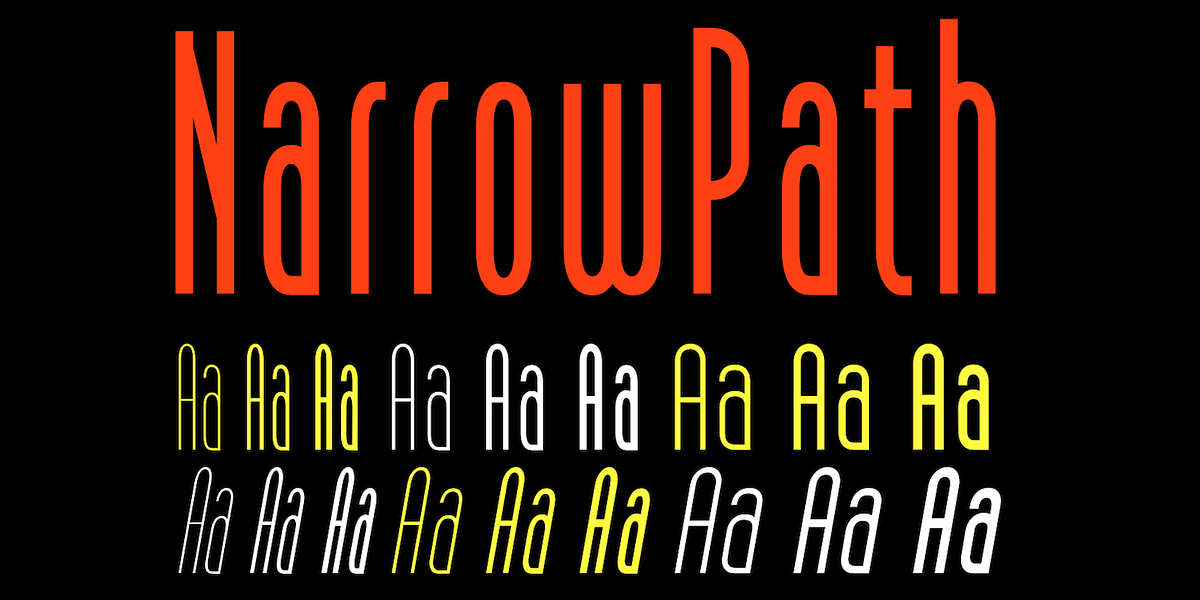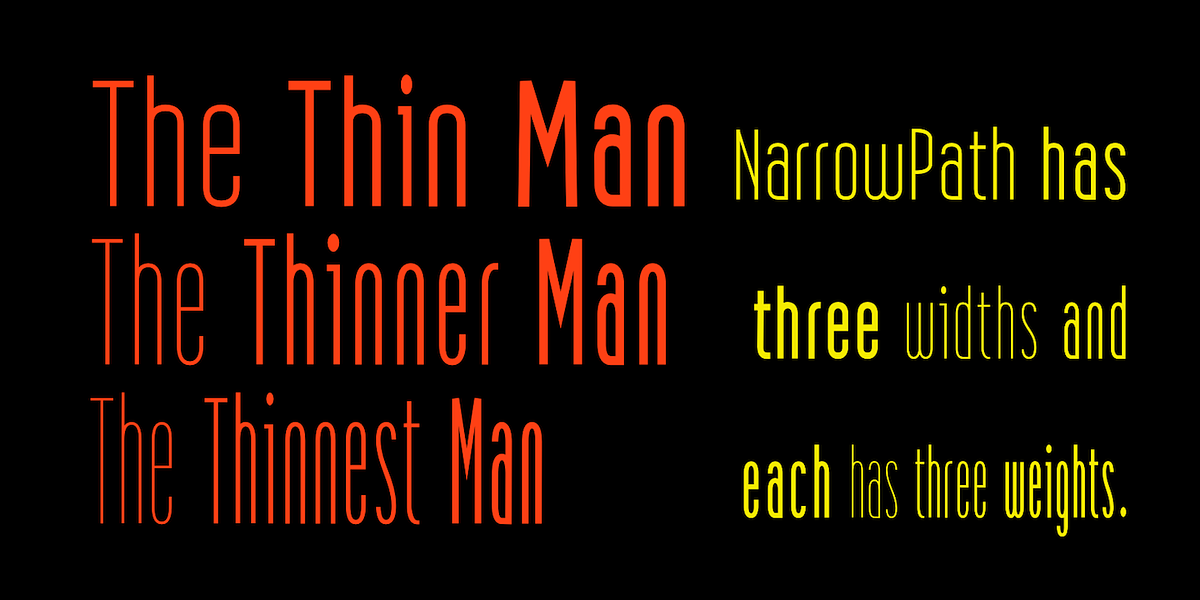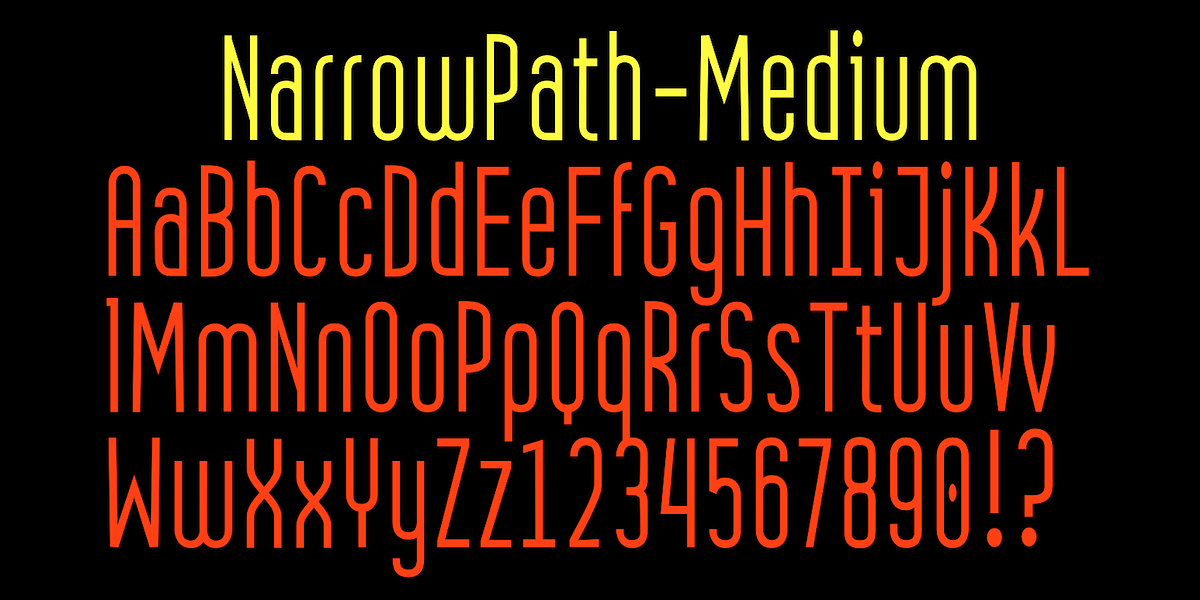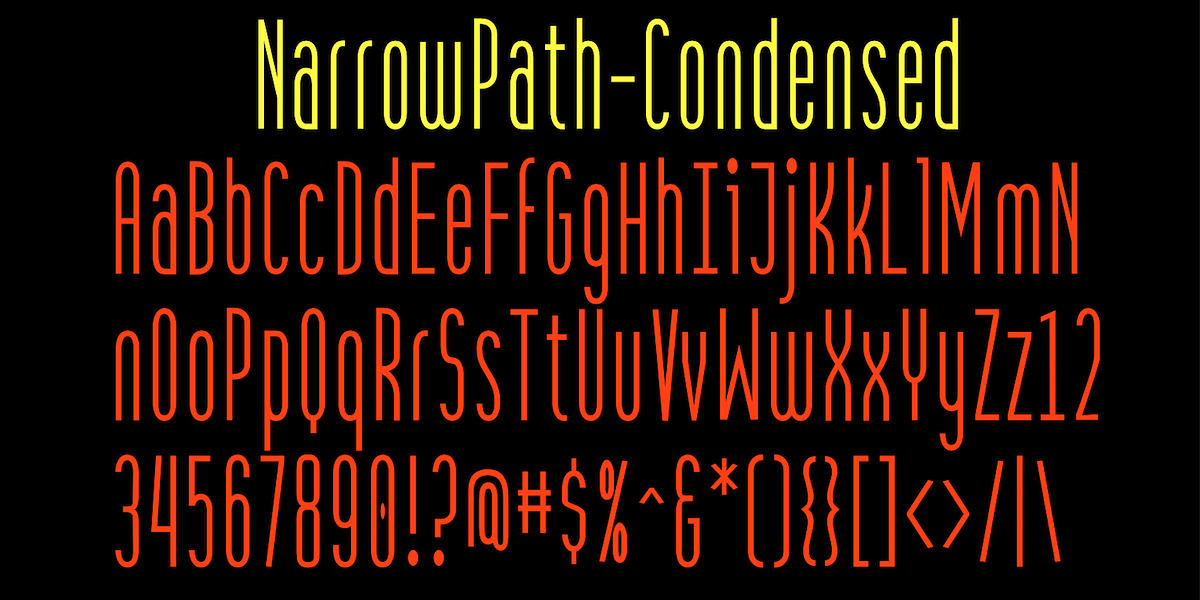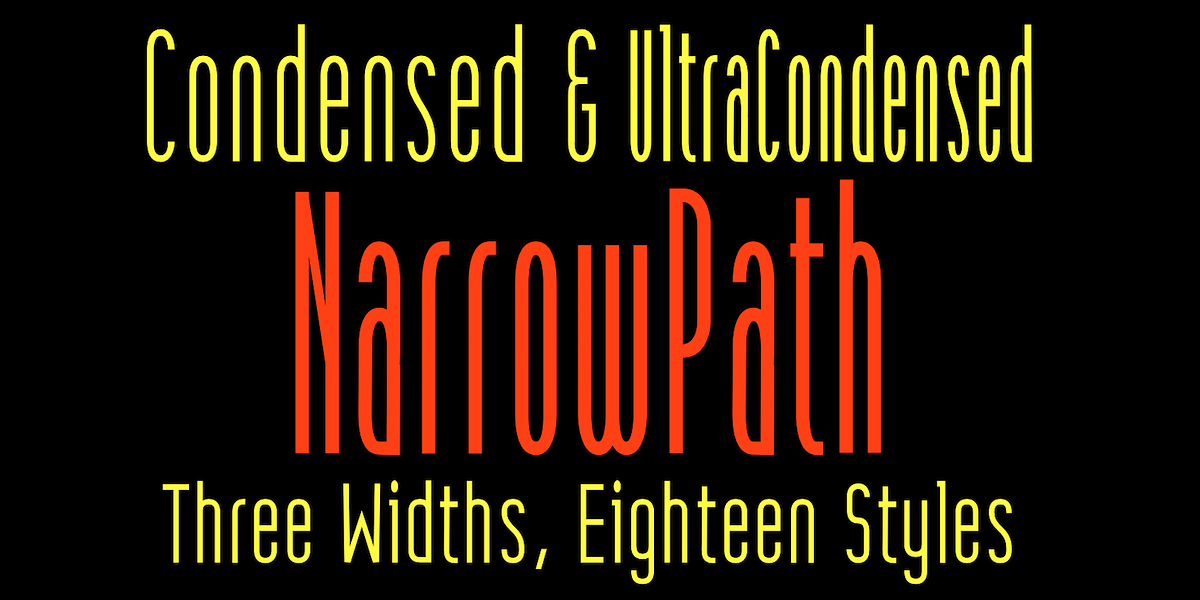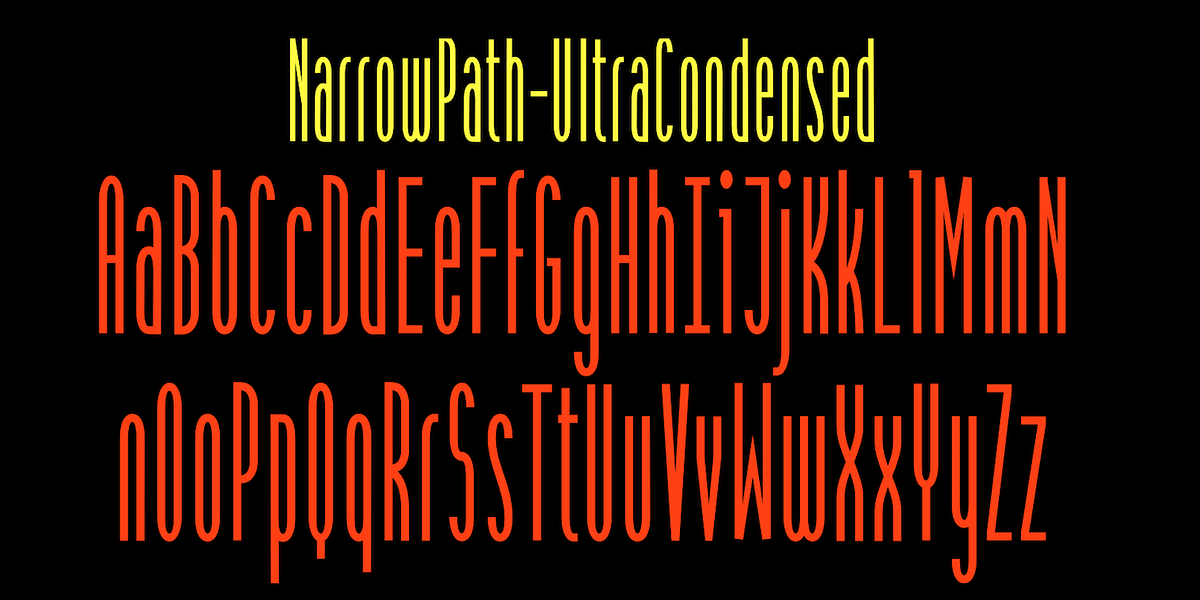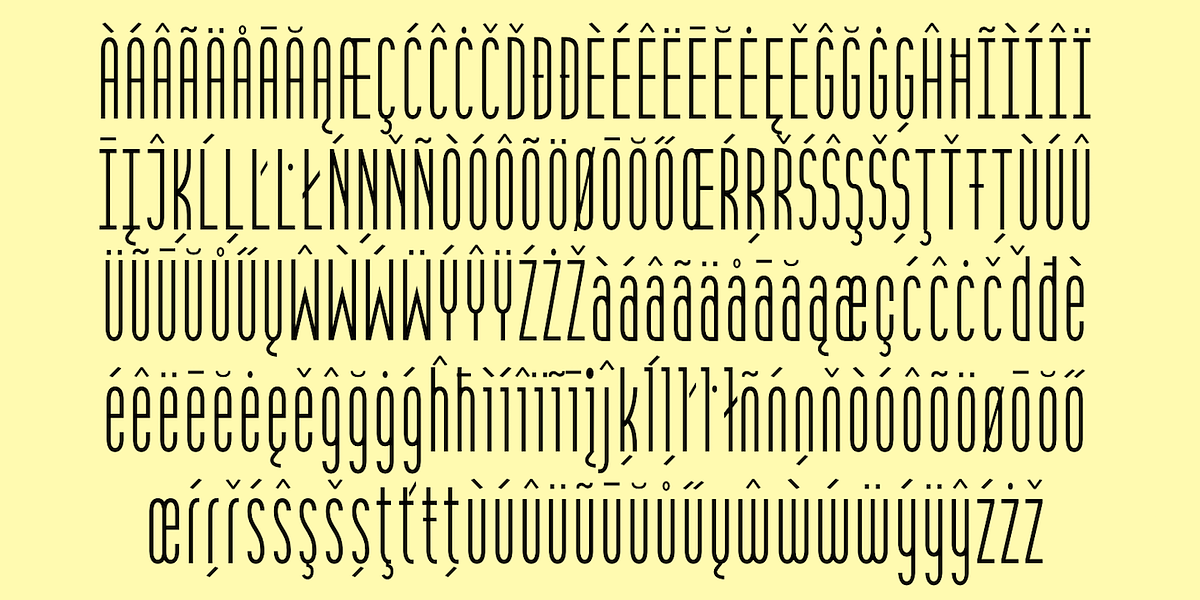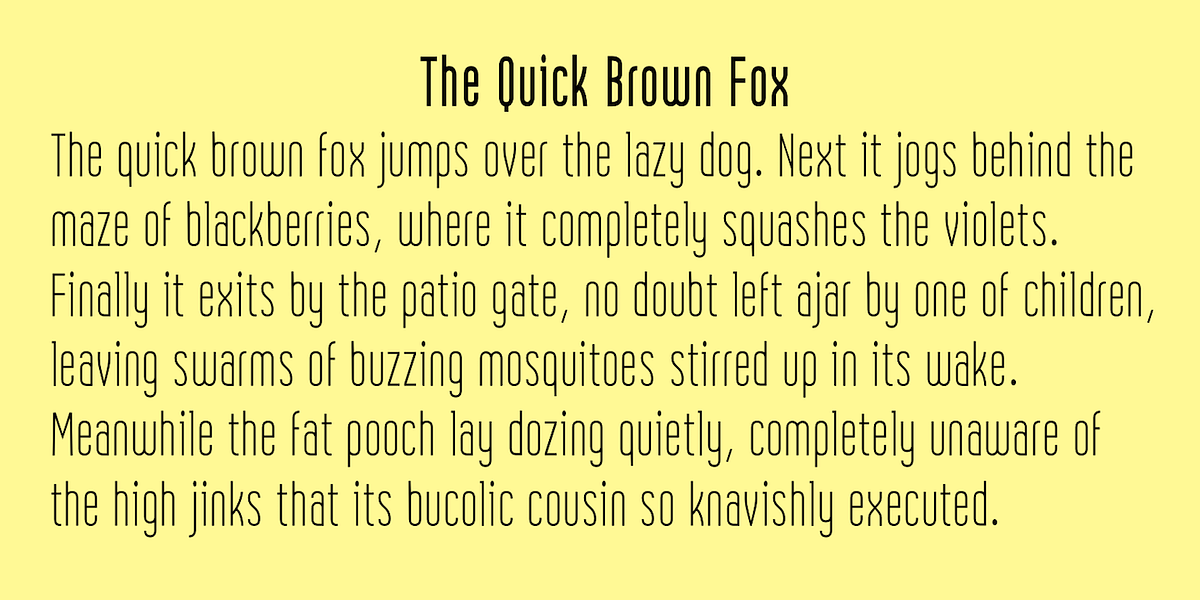
NarrowPath
NarrowPath is a family of 18 condensed and ultra-condensed sans-serif typefaces designed for display purposes. The fonts are geometric in style and feature loose character spacing that can be adjusted as needed. Suitable applications include packaging, signage, and titles where space is limited.